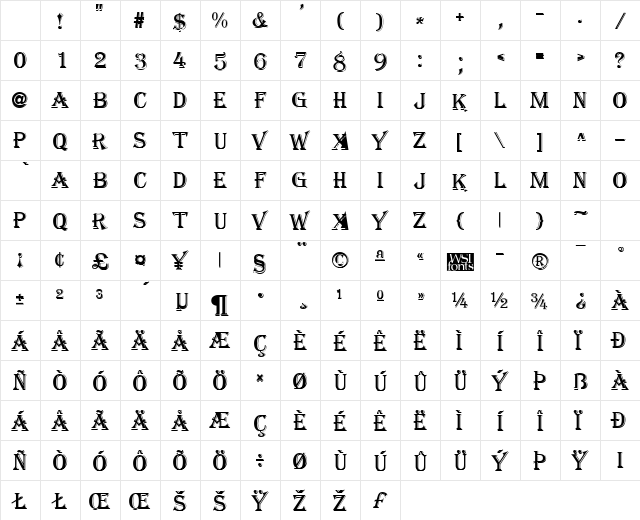
Complete Morocco normal glyph index. Displaying only characters natively supported by Morocco normal font.
Morocco is a composed and adaptable typeface that performs quietly and consistently across a wide range of design contexts.